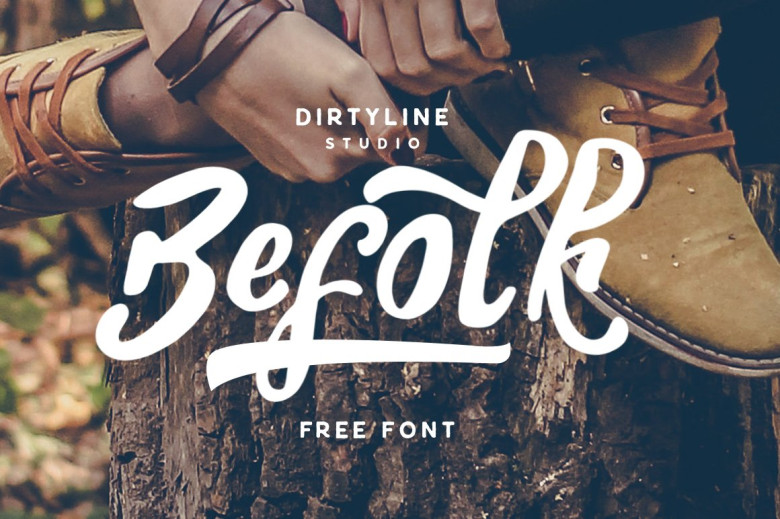
Befolk Font
Introducing to you a beautiful handwriting style. Befolk – Free Font designed and shared by Hendra Dirtyline. Befolk Brush Script is a Sweet Bold Typeface with some Alternate. You can use it as a logo, badge, insignia, packaging, headline, poster, t-shirt/apparel, greeting card, and wedding invitation. The flowing characters are ideal to make an attractive messages, mix and match Cornish with a bunch of alternative characters to fit your project.